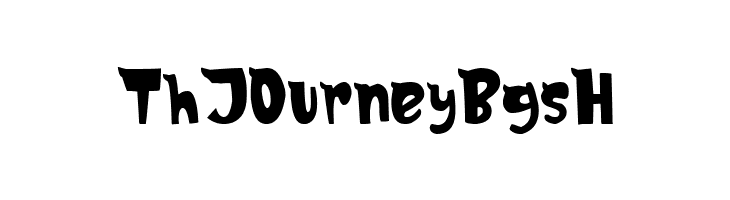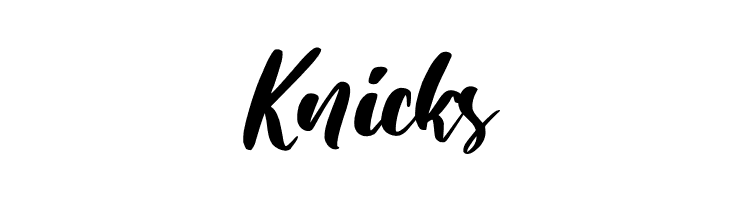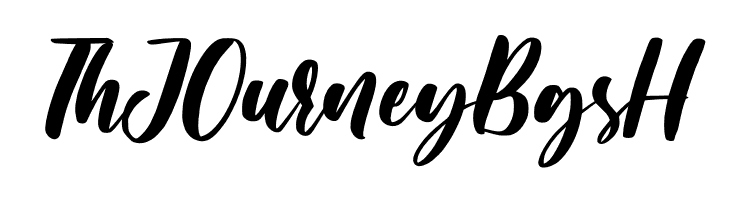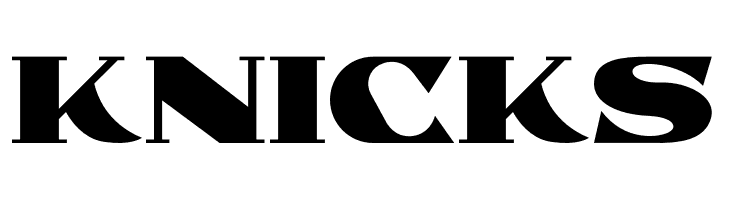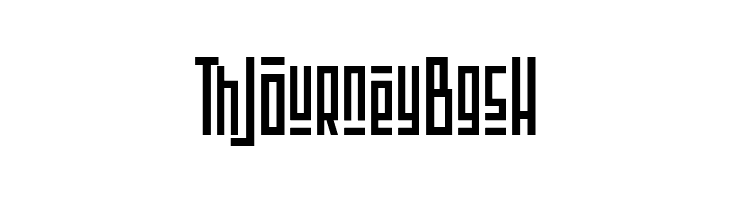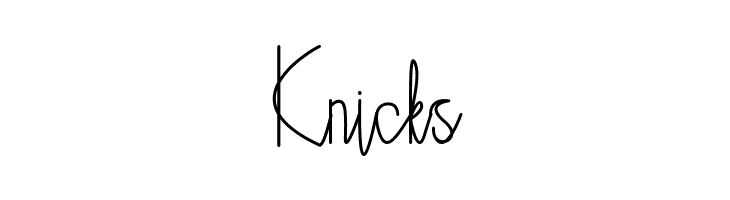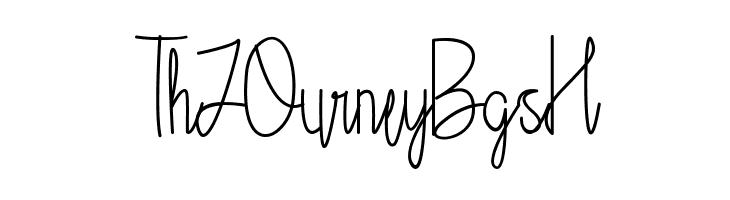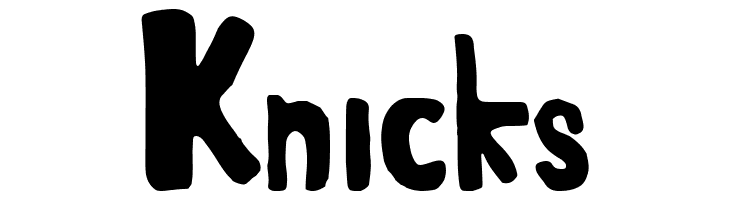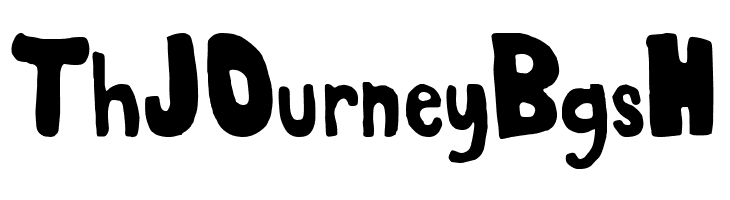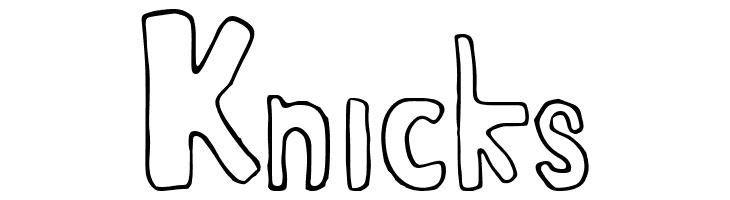
A decorative monogram font with characters enclosed in circles, offering a modern and elegant style.
A playful, bold font with irregular, hand-drawn shapes and whimsical charm.
A decorative, cartoon-style font made of cute monster illustrations.
A bold, geometric font with a modern, industrial design.
A bold, playful, hand-drawn font with a whimsical style.
A playful, hand-drawn font with bold, rounded characters and a whimsical style.
A playful, handwritten font with tall, narrow letters and flowing curves.
A bold, expressive script font with fluid strokes and elegant flourishes.
A bold, geometric font with strong visual impact.